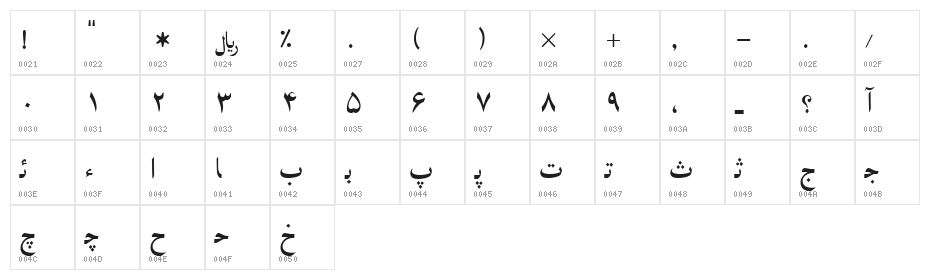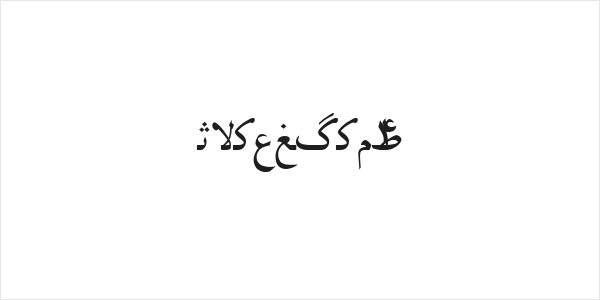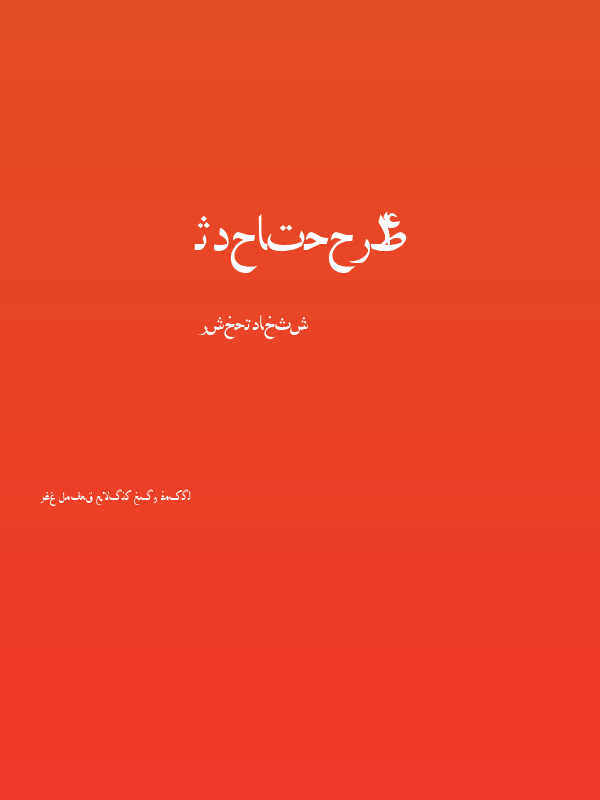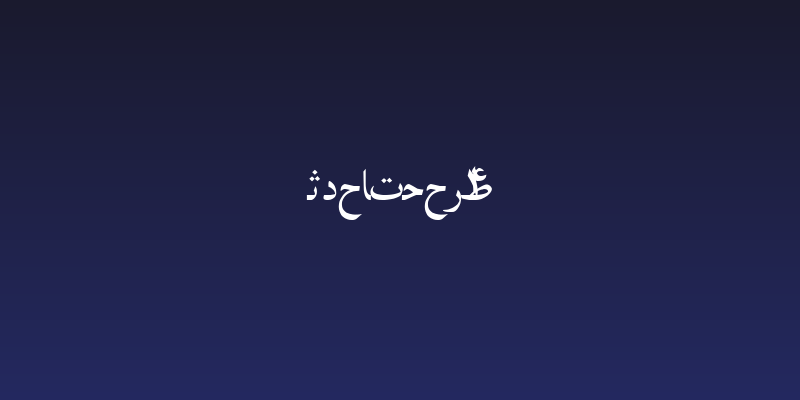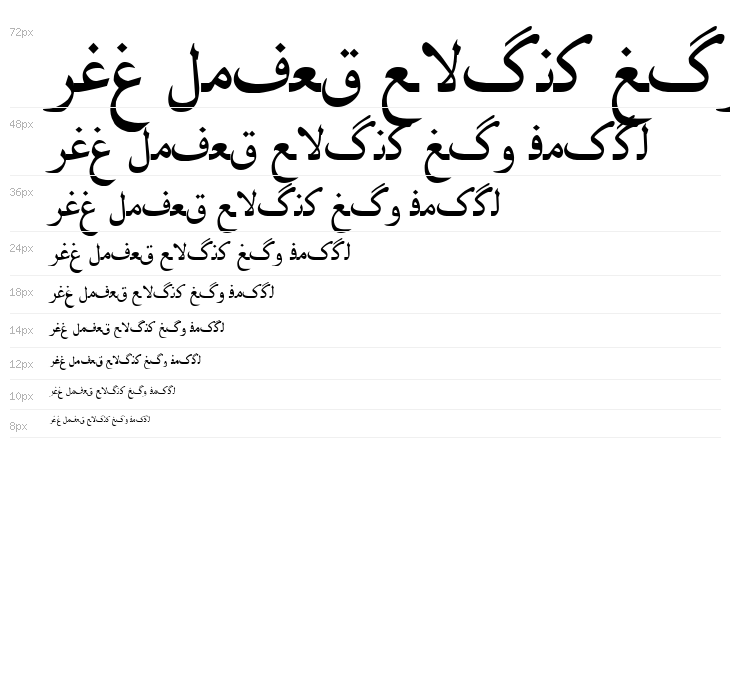
Irnafont_4 Font
Irnafont_4 Description
This font features a bold and dynamic style with strong, thick strokes and a high contrast between thick and thin lines. The characters are designed with a modern flair, incorporating sharp angles and smooth curves that give it a distinctive and elegant appearance. The script is highly legible, making it suitable for various design applications. The font's unique style is accentuated by its decorative elements, which add a touch of sophistication and creativity. The spacing between characters is balanced, ensuring readability while maintaining a visually appealing flow. This font is ideal for projects that require a bold and impactful statement, such as branding, advertising, and editorial design.